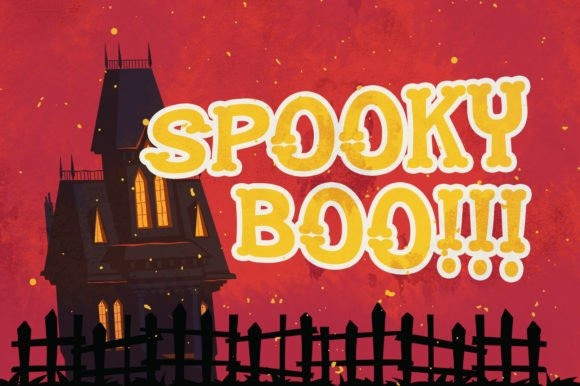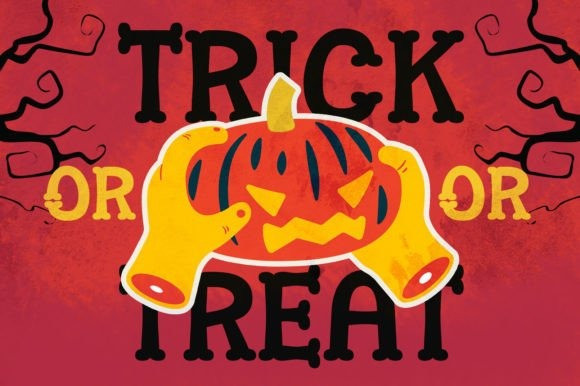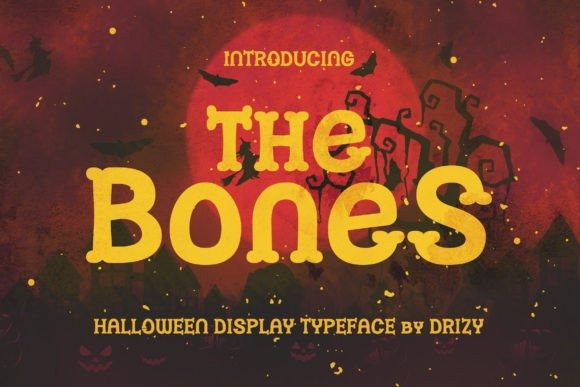
The Bones Display Font
The Bones Display Font is a fun and spooky display font. Fall in love with its incredibly distinct and whimsical style and use it to create awesome Halloween or horror-themed designs!